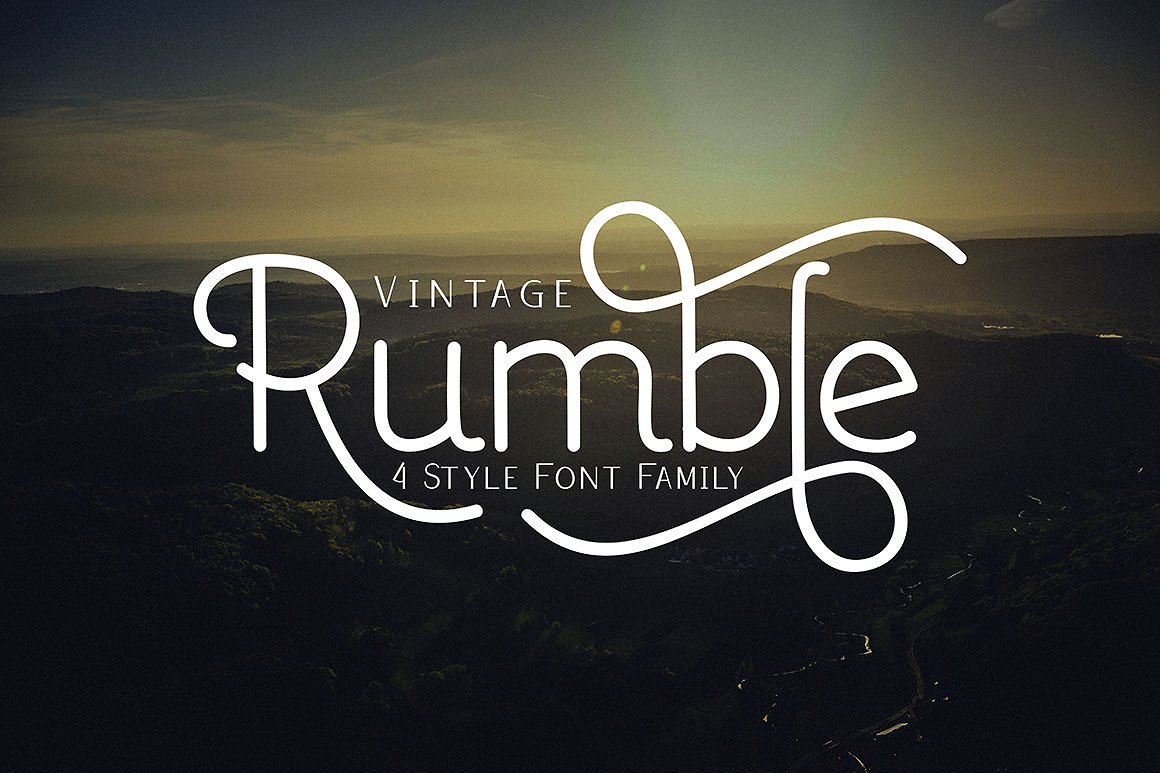
Rumble
Rumble 4 Font Family
Rumble 4 Font Family a new fresh & modern script with a handmade calligraphy style, decorative characters and a dancing baseline! So beautiful on invitation like greeting cards, branding materials, business cards, quotes, posters, and more!!